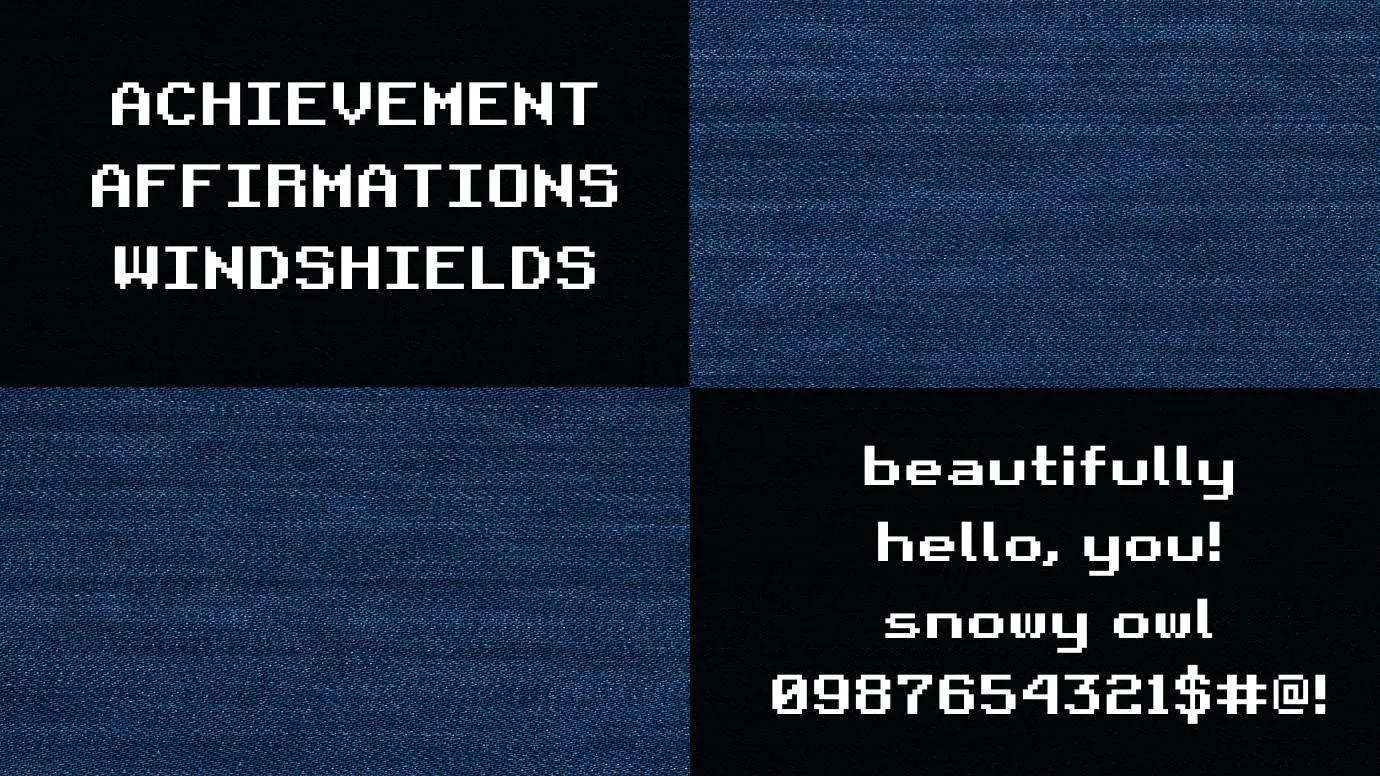
If you’re looking for a vintage-inspired font, then look no further than Arcade Classic. Retro Gaming font is based on the classic lettering used in early arcade games, making it perfect for any retro-themed project.
Retro Gaming typeface is available in different styles, so you can choose the perfect one for your project. It is available in two formats Regular and Bold.
Retro Gaming Font has a complete set of characters including uppercase, lowercase, numbers, and symbols. Retro Gaming typeface is available in different formats like TTF, OTF, and WOFF so you can use it in any project. This typeface looks like the minecraft font.
Designer of Retro Gaming Font
This surprising and unique typeface is designed by a Ukrain-based typeface designer Vasily Draigo for the foundry Daymarius in 2019.
This font style is created with an exclusive and consistent style. This single attractive style is a combination of various characteristics, including capital and small alphabets, numbers, symbols, special characters, punctuations, glyphs, and different language support.
| Name | Retro Gaming Font |
| Style | Game |
| Designer | Vasily Draigo |
| Foundry | Daymarius |